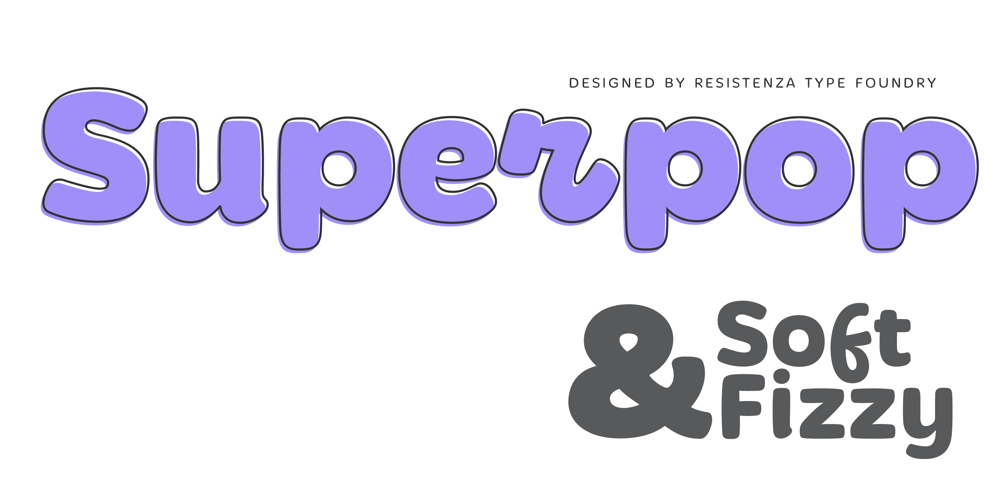
Superpop Font Family was designed by Giuseppe Salerno, Paco González and published by Resistenza. Superpop contains 12 styles and family package options. Superpop is sweet and gentle, a rounded geometric sans with a brushy script twist. Soft and refreshing like a soda, this font gets fizzy when geometric letterforms get mixed with script shapes you wouldn’t expect in a Sans Serif. A display family with two styles ( regular and italic ), 5 weights and an outline version for each style.Opentype Features: https://www.rsztype.com/article/how-to-use-opentype-features-adobe-microsoft-pages